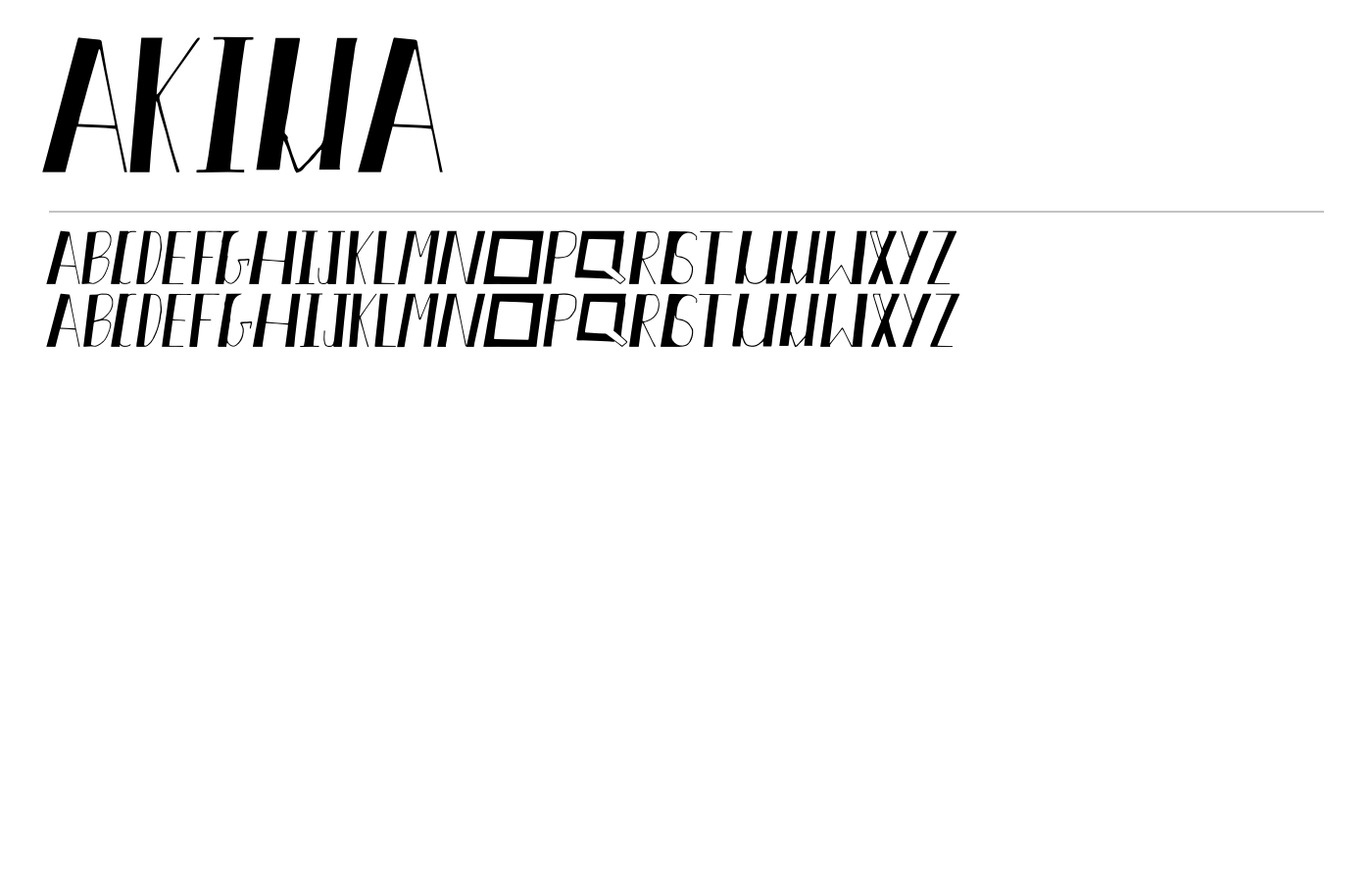
Akiva is a condensed sans serif font with a strong, modern character, featuring high contrast between thick and thin strokes and a distinct geometric sharpness. Its elongated letterforms and stylized shapes give it an elegant yet edgy feel, making it ideal for contemporary branding, fashion, and headline use where a striking visual impact is needed. This font works best in designs that want to convey sophistication with a creative, avant-garde touch.
Akiva Font
About Akiva Font